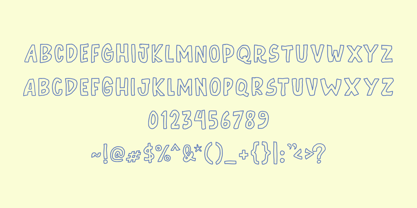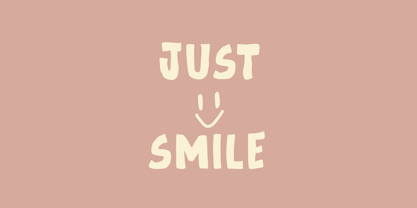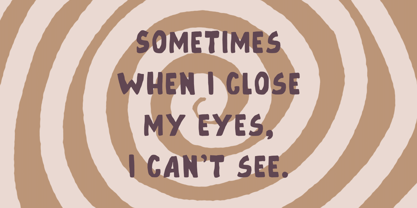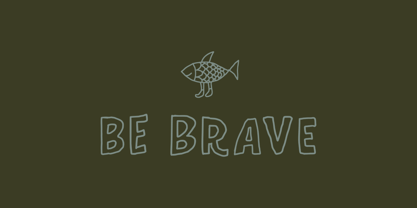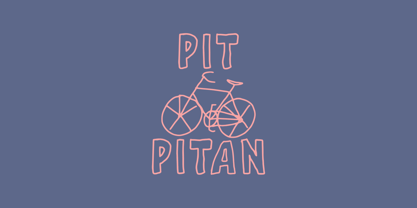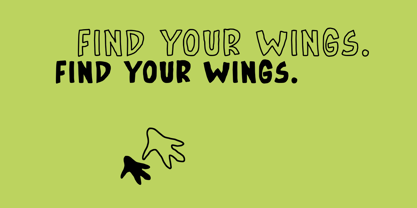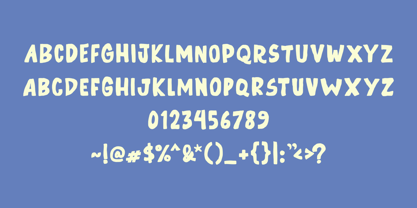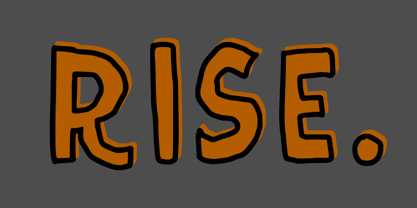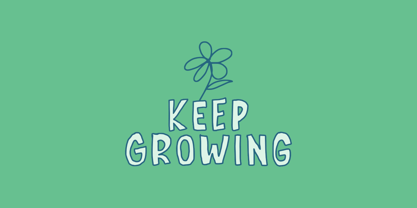
Little Suika
by Zuzulgo
The Little Suika Font Family was designed by Muhammad Zulfani and published by Zuzulgo. Little Suika contains 2 styles and family package options. More about this family
Little Suika is a handmade font created from real hand-drawn strokes, bringing a warm, natural, and playful vibe to your designs. It comes in two styles:
1. Regular – solid, perfect for titles, logos, and body text.
2. Line – an outline version that feels light, expressive, and versatile for creative combinations.
With its unique handcrafted charm, Little Suika is perfect for invitations, quotes, packaging, branding, posters, and social media content.